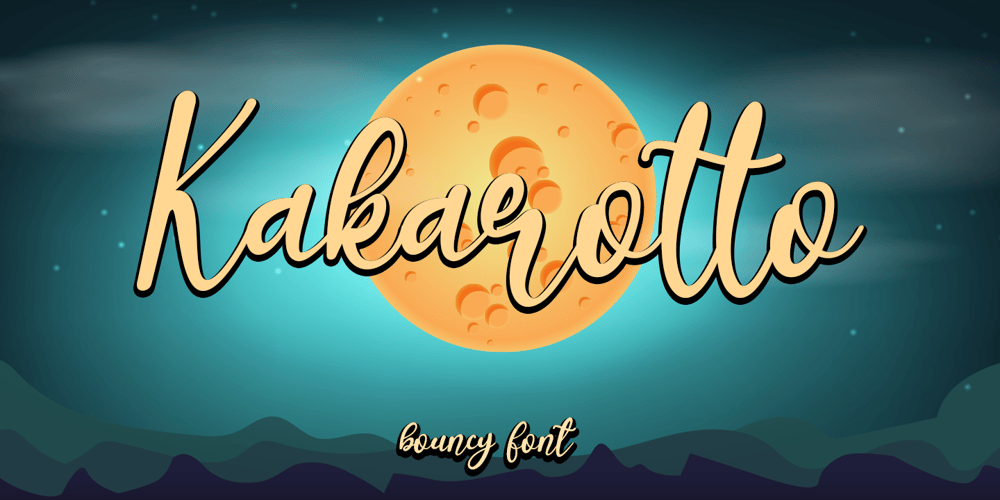
Kakarotto
Kakarotto font
Kakarotto Font Family was designed by Arief Tri Sulistiyono and published by Supersemarletter. Kakarotto contains 1 styles and family package options. Kakarotto is a flowing handwritten font, described by an elegant touch, perfect for your favorite projects. Fall in love with its bouncy and joyful style and use it to create lovely designs!Font Features :• Regular version• Character set A-Z in uppercase and lowercase• Ligatures in Lowercase and special• Alternates option• Numerals & Punctuation• Accented Characters• Multiple Languages SupportedRecommended to use in Adobe Illustrator or Adobe Photoshop with opentype feature.If you have questions, just send me a message and I’m glad to help.Best Regards,Supersemar Letter